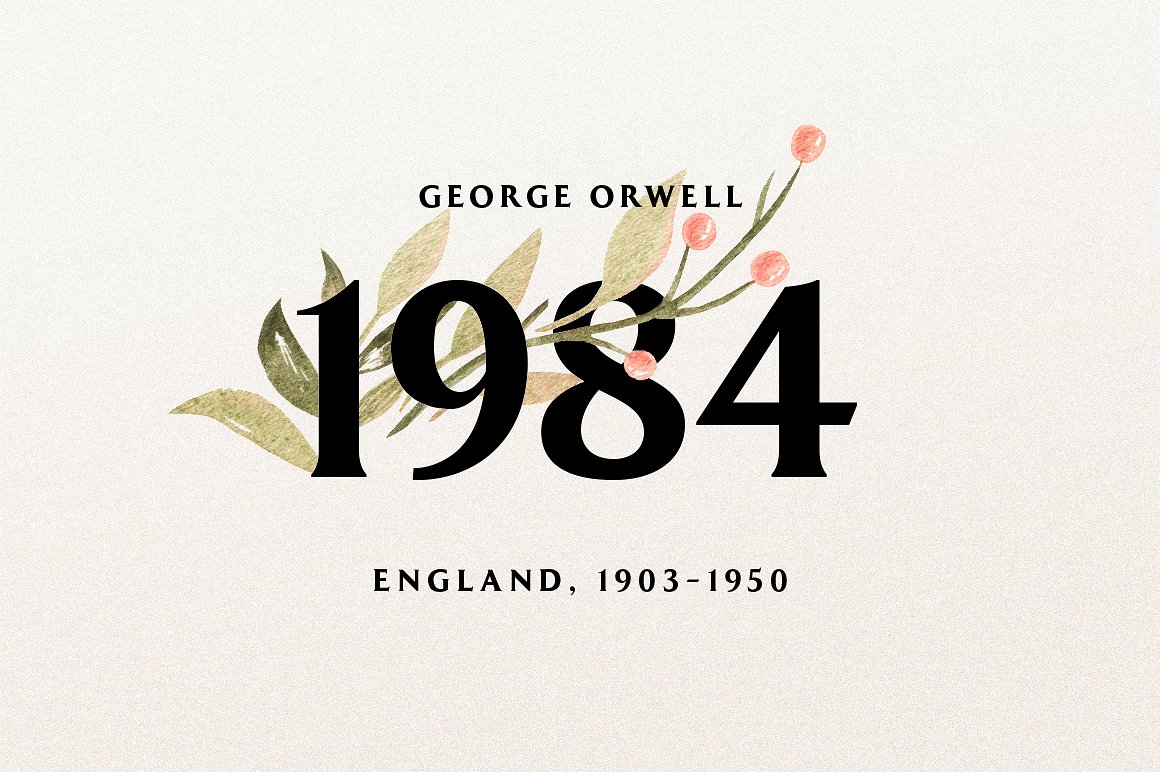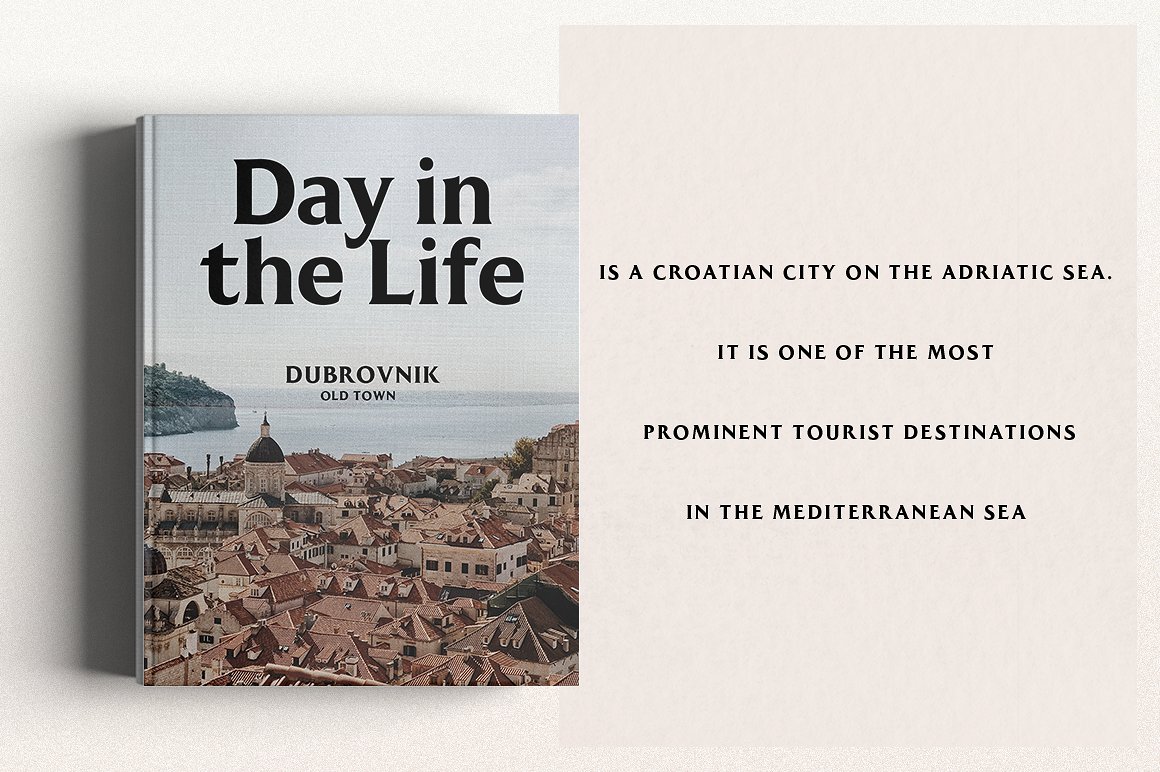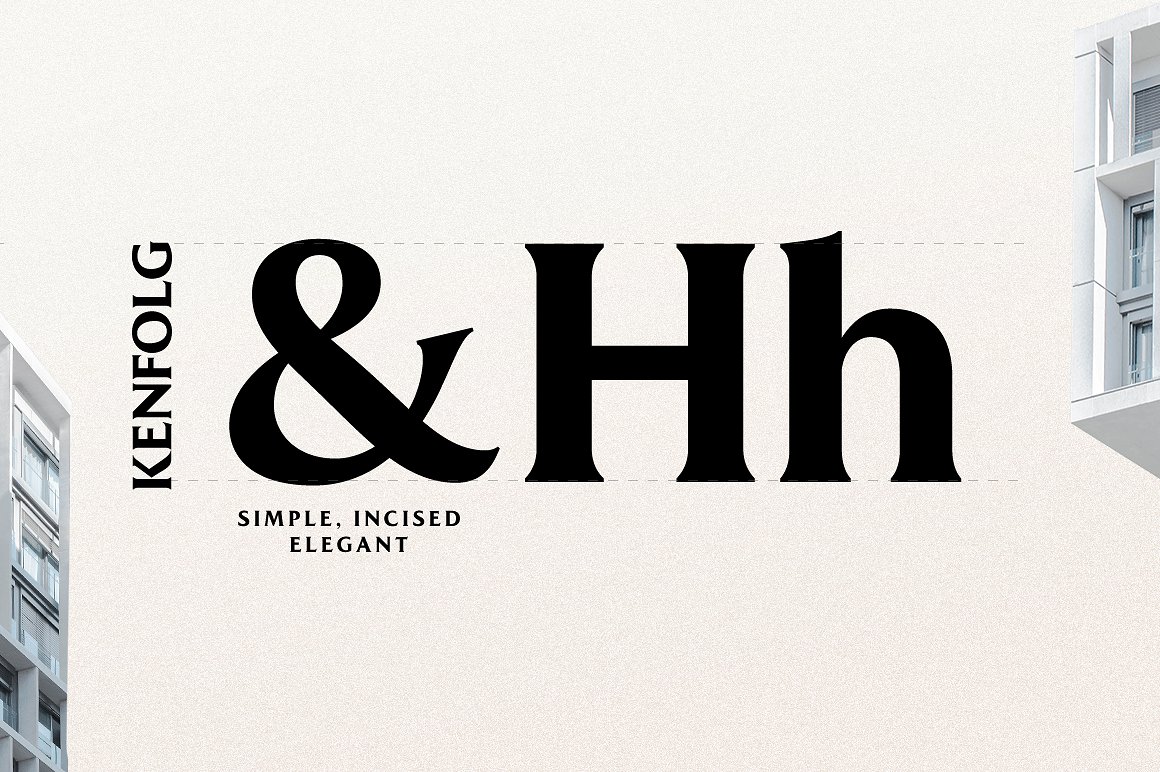
MADE Kenfolg Serif Font
MADE Kenfolg Serif Demo Font
Thank you for looking Kenfolg Font. This is a display titling serif typeface. It’s a very versatile font that works great in large and small sizes. Kenfolg design and shared by MadeType. The Kenfolg serif font will perfect for many project: book, magazines, logo, branding, photography, quotes, blog header, poster, advertisements, etc.